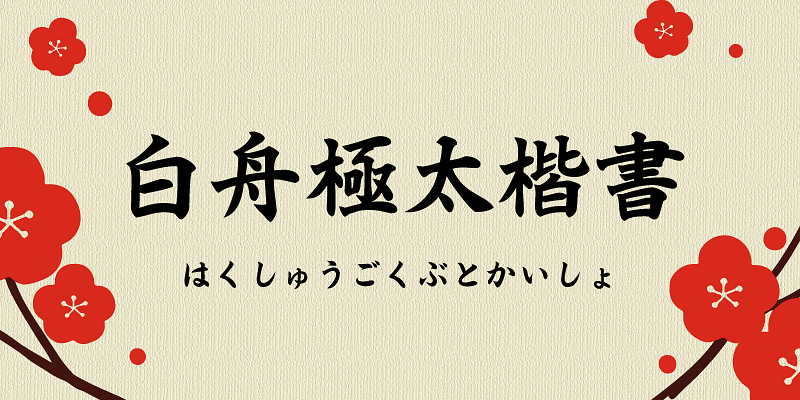
Drawn by the master of a long established seal shop, this kaisho (regular calligraphic style) brush-script typeface has well ordered letter forms.
Supported glyphs include: 1,026 Kyoiku-yo-kanji (Ideographic Characters for Education), alphanumeric, full-width hira-gana and kata-kana, and miscellaneous symbols.